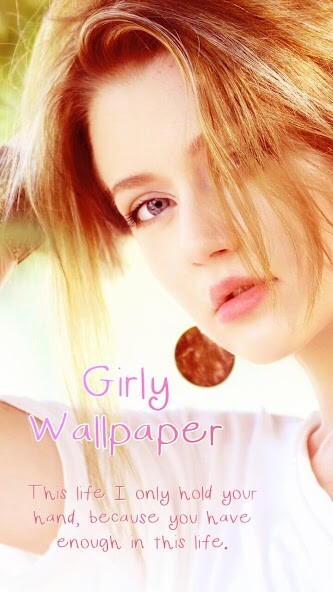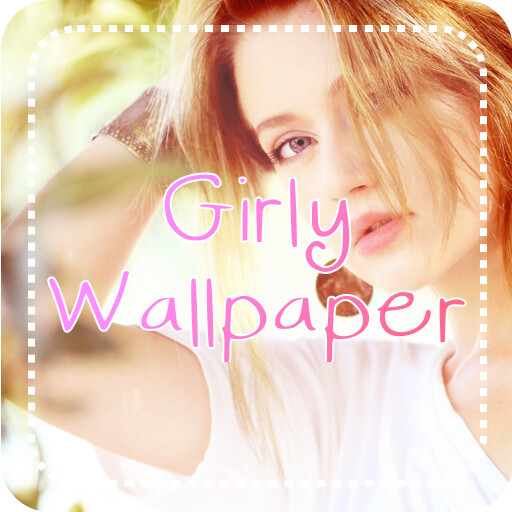
Girly Wallpaper allows all users to change the system font of your phone or tablet .
You can find the amazing and perfect font style which fits your taste well.
Change your entire phone font into Girly Wallpaper.
The feature of Girly Wallpaper is compatible ability.
Lovely, sweet and colorful as you wish.
Hundreds of selected fonts style from handwritten fonts like Girly Wallpaper, such as cute, darker, comic, galaxy, love, pink, sexy written, colorful fonts, clean fonts, candy fonts, etc.